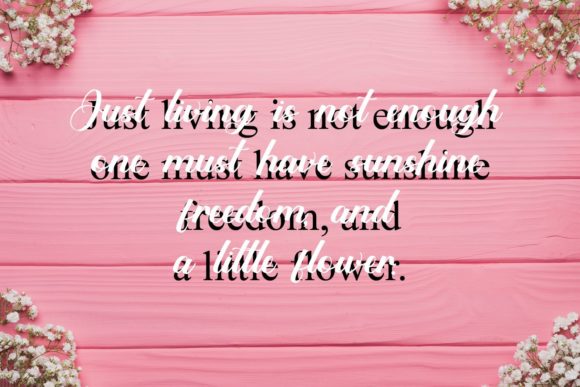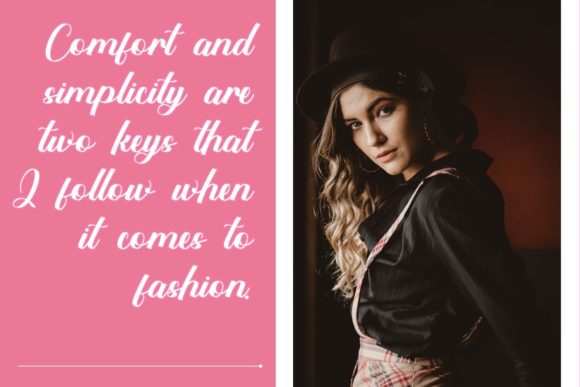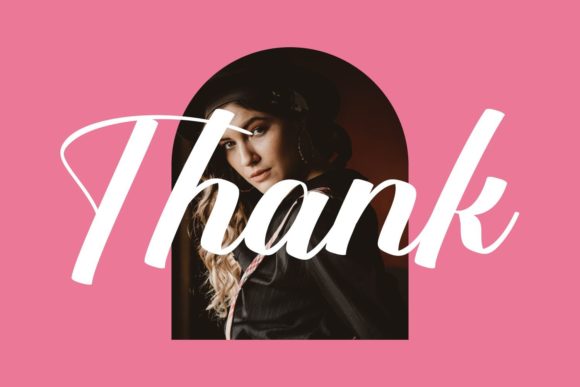
Introduction to Melaty Font
Have you ever been brainstorming ideas for a creative project, only to be stopped in your tracks by the perfect font? For designers, finding the right font can be the difference between a good design and a great one. This is where the Melaty Font comes in – a beautiful, cursive script font that’s perfect for adding a touch of elegance to your designs.
Whether you’re working on a wedding invitation, a thank you card, or a logo, the Melaty Font is a valuable resource for designers. Its high quality and versatility make it a must-have for any design project. Plus, with its transparent background, it’s easy to layer and combine with other design elements. And the best part? You can download the Melaty Font for free, making it an accessible design resource for designers of all levels.
Key Features of Melaty Font
- High-quality font with a unique, modern design perfect for creative projects.
- Transparent background, making it easy to use with any background image or color.
- Includes 6 different font styles (Regular, Italic, Bold, Bold Italic, Outline, and Shadow) to suit various design needs.
- Designed with a resolution of 300 DPI, ensuring crisp and clear display on various devices and print materials.
- Perfect for use in logos, headings, titles, and other design elements where a modern and elegant touch is required.
Honest Review: Melaty Font
As a designer, I’m always on the lookout for high-quality design resources to enhance my creative projects. Recently, I stumbled upon the Melaty Font, and I’m excited to share my thoughts on it.
What works well is its clean and modern design, making it perfect for a variety of projects, from logos to typography-heavy designs. I particularly love the fact that it comes with a transparent background, giving me the flexibility to place it on any design without worrying about unwanted color clashes. The font also offers a free download option, which is a huge plus for designers on a budget.
- ✨ Clean and modern design suitable for various projects
- ✨ Transparent background for seamless design placement
One limitation I’ve noticed is that the font is relatively limited in terms of character sets and styles. It’s a great starting point for simple designs, but it may not be suitable for complex or multi-lingual projects.
Overall, I’m impressed with the Melaty Font’s quality and flexibility. While it may have its limitations, it’s a great addition to any designer’s arsenal, especially for those working on tight budgets or simple creative projects.
Tips for Getting the Most Out of Melaty Font
Use the Melaty Font with a transparent background to create visually appealing designs. Experiment with different font sizes and styles to add depth and interest to your project.
The Melaty Font is ideal for creating high-quality designs for various projects, including logos, brochures, and business cards. Its transparent background makes it perfect for creating overlays and other design elements.
Alternatives to Melaty Font
The Great Vibes Font is a high-quality, cursive script font ideal for creative projects that require a touch of elegance. Its transparent background and smooth lines make it perfect for designing invitations, quotes, and other decorative elements. When to use: For projects that need a sophisticated, handwritten feel. How it compares to Melaty Font: Great Vibes Font is more elegant and refined, but less versatile.
The Alex Brush Font is a beautiful, handwritten script font that is great for creative projects that require a personal touch. Its transparent background and high-quality design make it perfect for designing logos, quotes, and other decorative elements. When to use: For projects that need a unique, handwritten feel. How it compares to Melaty Font: Alex Brush Font is more versatile and has a wider range of styles, but less elegant.